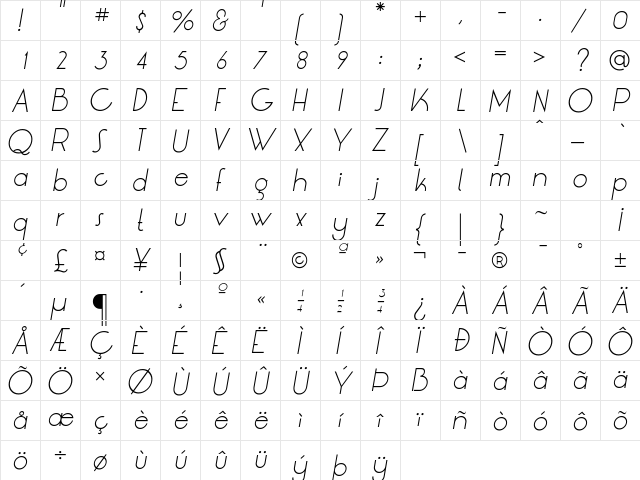
LT Oksana Light Italic
Design Context for LT Oksana Light Typeface
LT Oksana Light is a composed and adaptable typeface that performs quietly and consistently across a wide range of design contexts. Its italic angle brings a sense of urgency and motion to the letterforms. Its slender proportions lend an understated elegance to any composition.
Pro Tip: Use LT Oksana Light for emphasis, pull quotes, and subheadings where its slanted energy can add rhythm to the layout.